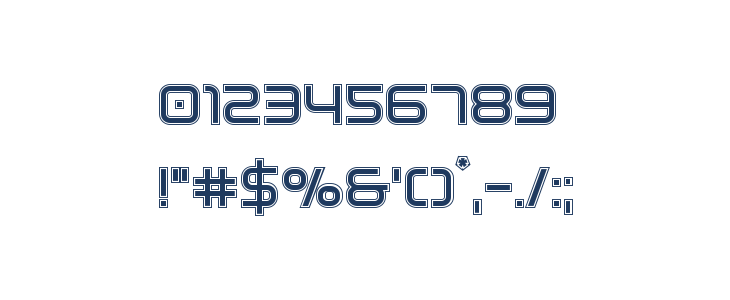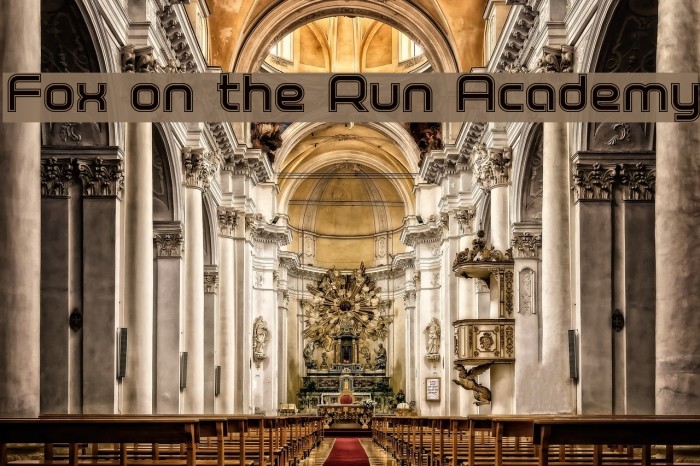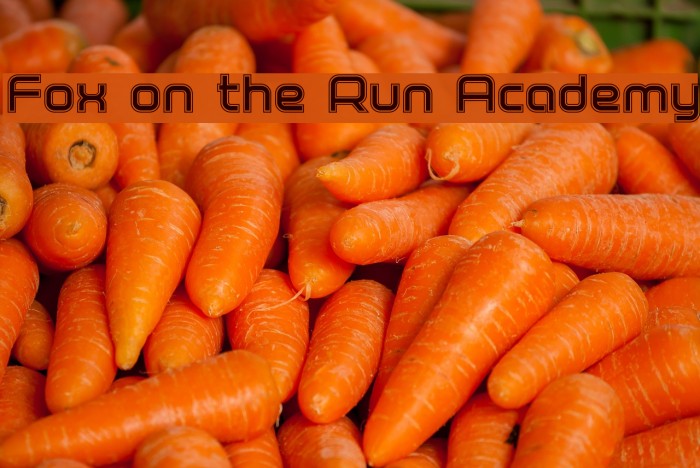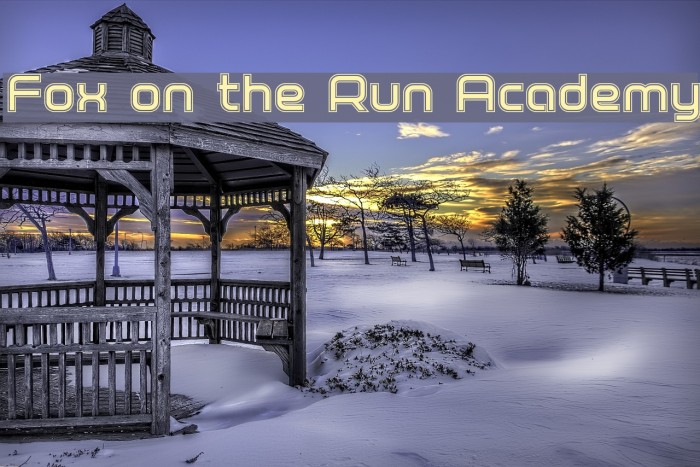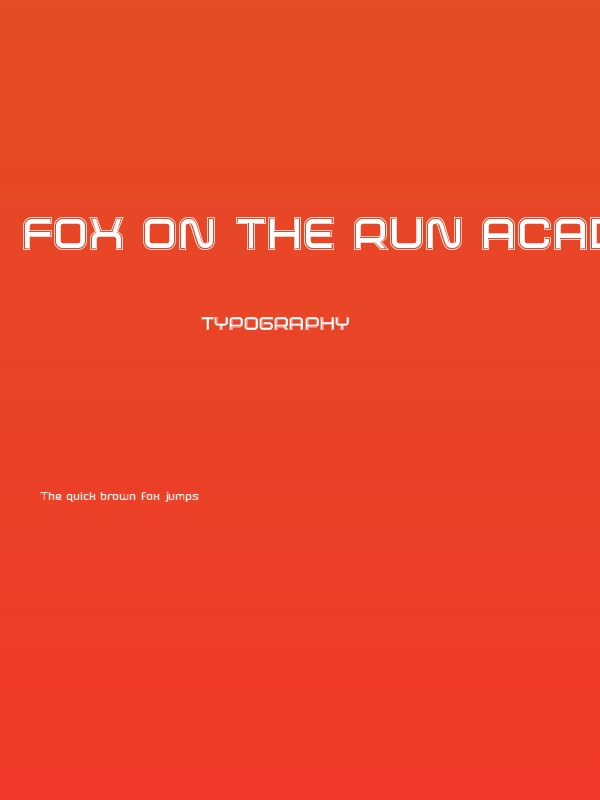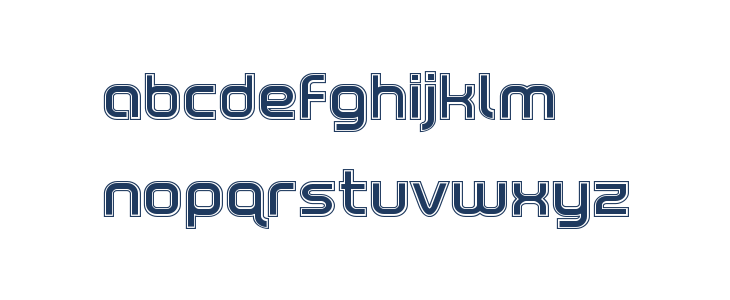
Fox on the Run Academy Font
Fox on the Run Academy Description
This font features a bold, geometric design with a distinct outline style, giving it a futuristic and modern appearance. The uppercase and lowercase letters are consistent in their use of straight lines and curves, creating a cohesive look across the alphabet. The numerals and special characters maintain this geometric theme, ensuring uniformity throughout. The font's structure is clean and precise, making it suitable for digital and print media where a contemporary and eye-catching style is desired.